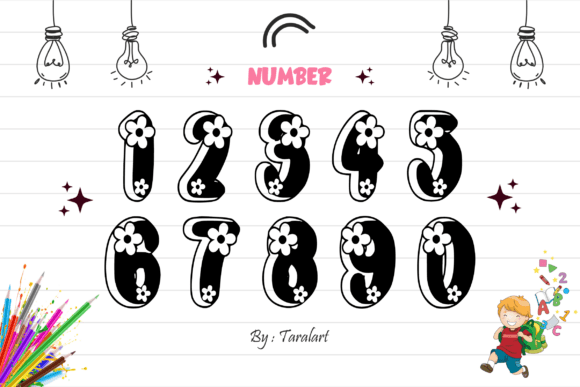
Discover the Enchanting Charm of Flowerscent Regular Font
Have you ever been in the middle of a design project, and suddenly, you’re stuck on finding the perfect font? I recall a recent experience where a client requested a unique, floral-themed font for their brand. After hours of searching, I stumbled upon “Flower Scent” — a modern decorative typeface that has since become my go-to for creative projects. In this article, I’ll share my journey with this beautiful font, its features, and how you can make the most of it in your designs.
A Personal Review of Flowerscent Regular Font
- ✅ Unique and eye-catching design: Every letter blooms with floral elegance, making it perfect for projects that need a touch of whimsy.
- ✅ Highly versatile: Suitable for various design projects, from sublimation designs on t-shirts to animated scenes and comic book titles.
- ✅ Easy to read: Despite its decorative nature, “Flower Scent” remains clear and readable, even at smaller font sizes.
- ✅ Constantly inspires creativity: The font’s distinctive style sparks imagination and encourages experimentation in design.
While “Flower Scent” is an exceptional font, there are a few minor considerations to keep in mind:
- 🤔 Limited use in formal or professional contexts: The font’s playful, decorative nature makes it less suitable for formal documents or business communications.
- ⚠️ May not be ideal for very long texts: As with many decorative fonts, “Flower Scent” is best used for headlines, titles, or short paragraphs, rather than extensive blocks of text.
The Story Behind Flowerscent Regular Font
The story of “Flower Scent” begins with a designer who wanted to capture the essence of nature in a font. Inspired by the beauty of flowers and the world around us, they created a typeface that would bring a touch of whimsy and elegance to designs. With “Flower Scent,” you can add a refreshing, floral twist to your projects and make them stand out.
Q: What type of projects is Flowerscent Regular Font best suited for?
A: “Flower Scent” is perfect for creative projects that require a touch of elegance and whimsy, such as sublimation designs on t-shirts, animated scenes, comic book titles, and eye-catching merchandise like mugs and tote bags.
Q: Is Flowerscent Regular Font easy to read?
A: Despite its decorative nature, “Flower Scent” remains clear and readable, even at smaller font sizes. However, it’s best used for headlines, titles, or short paragraphs, rather than extensive blocks of text.